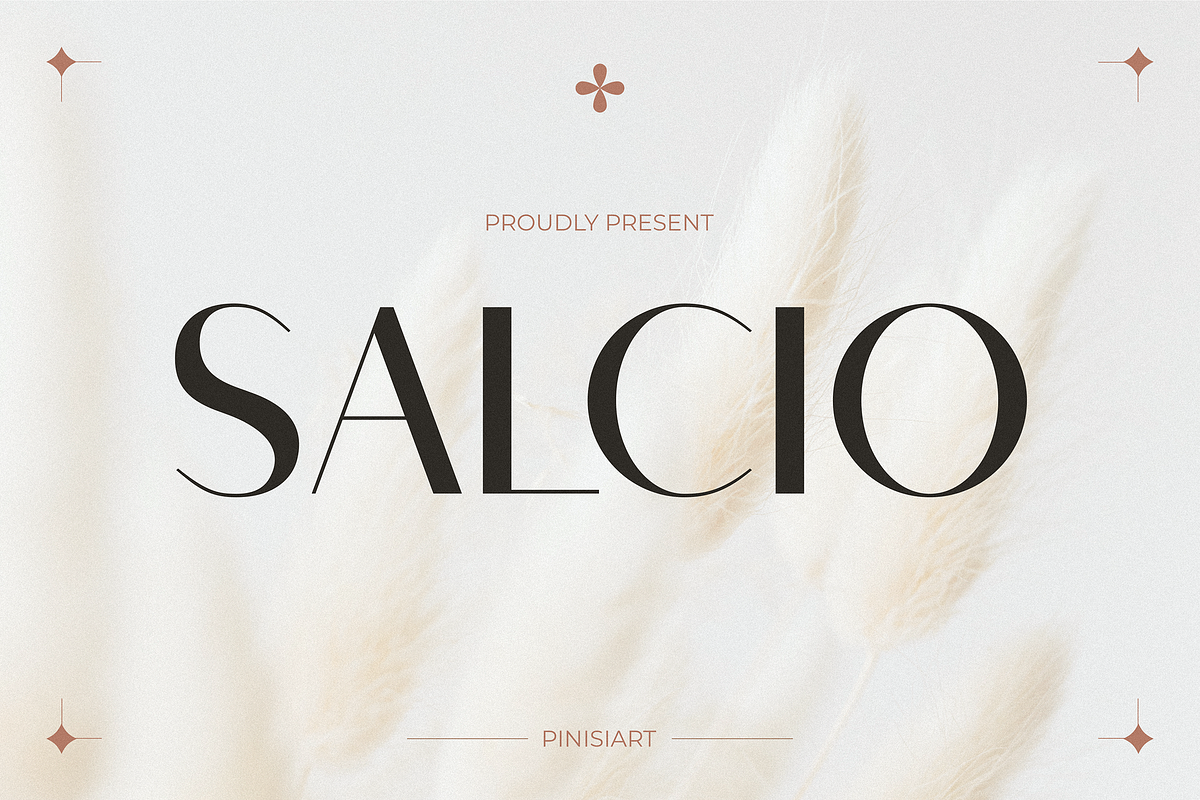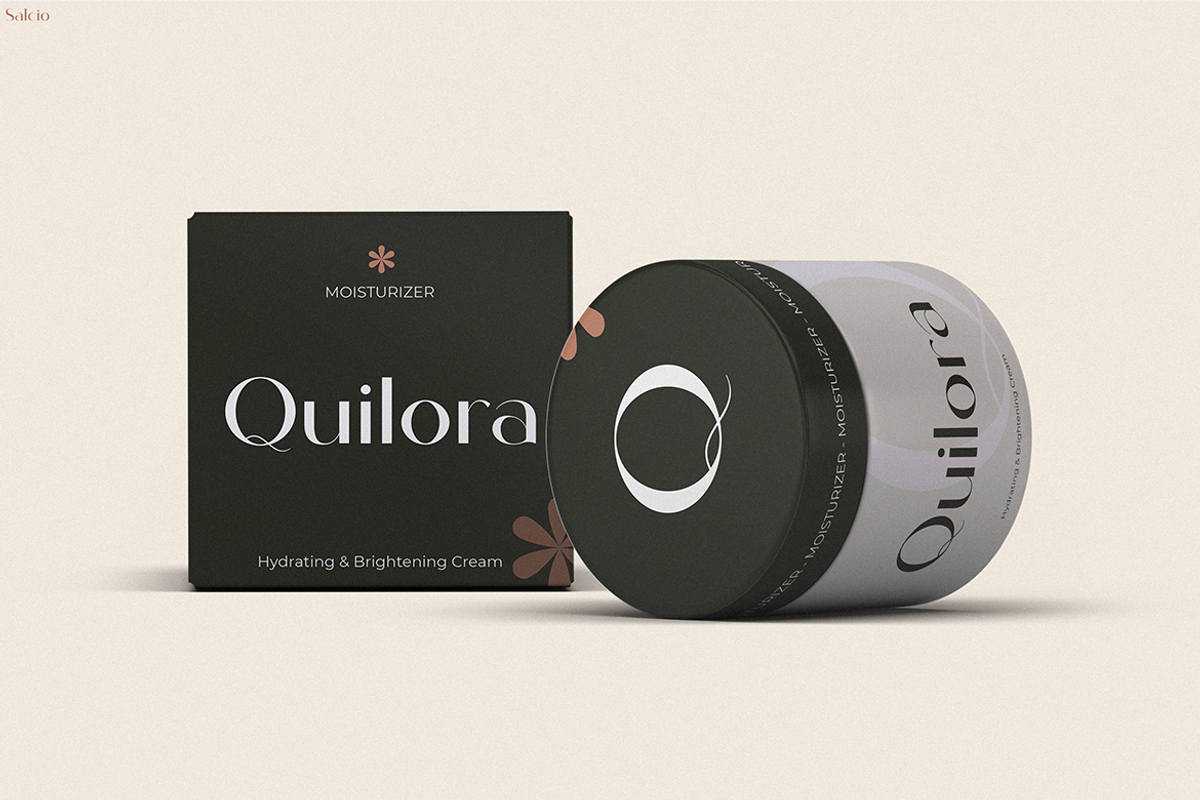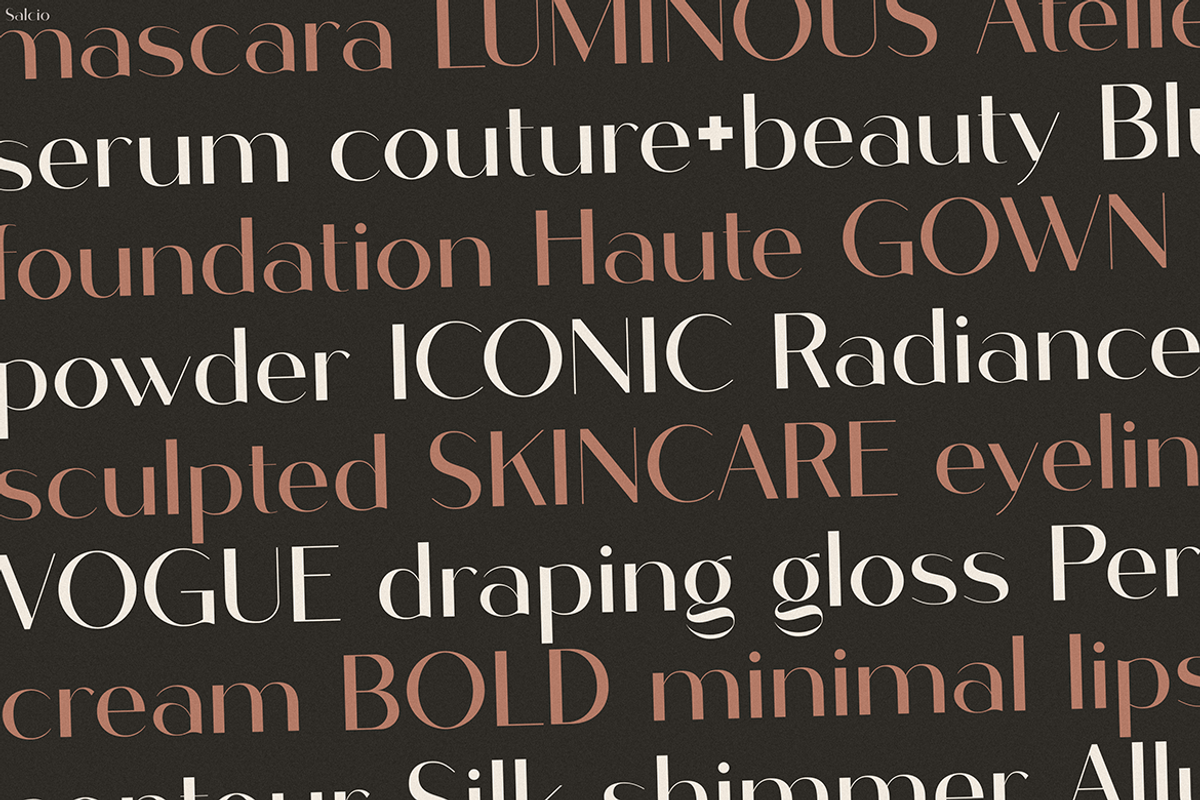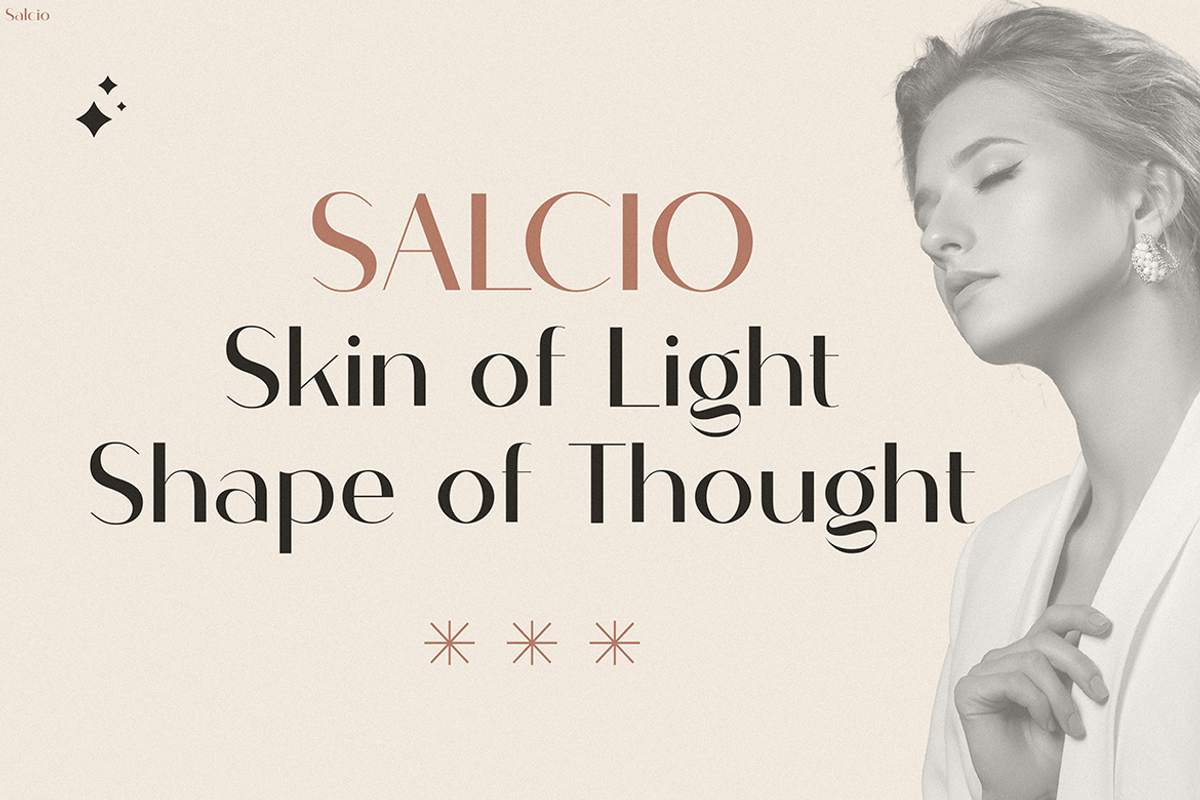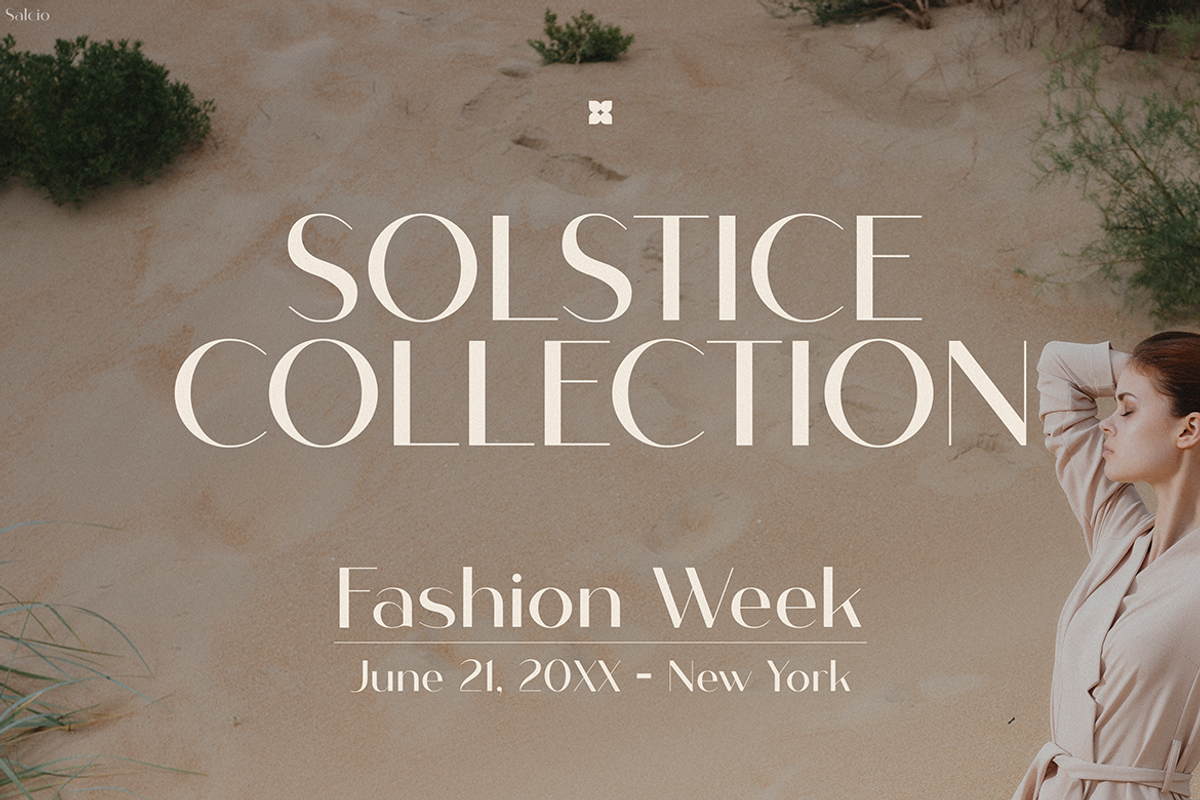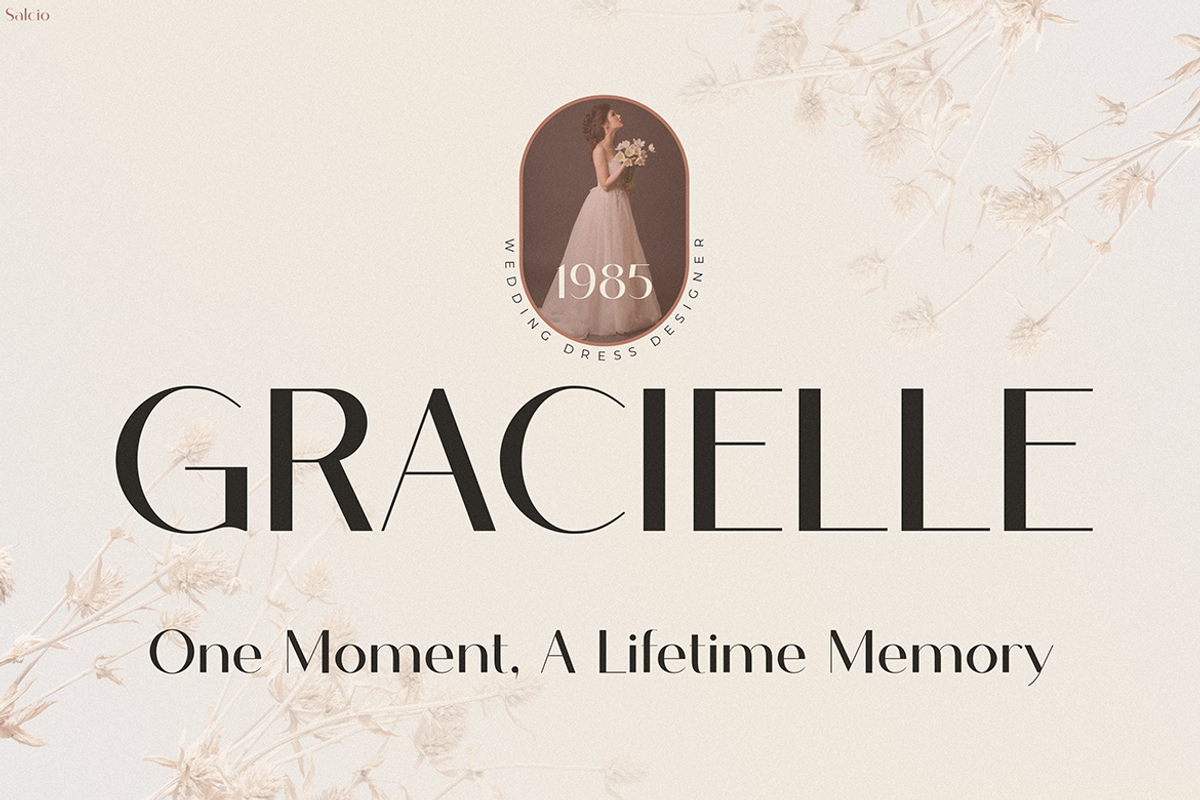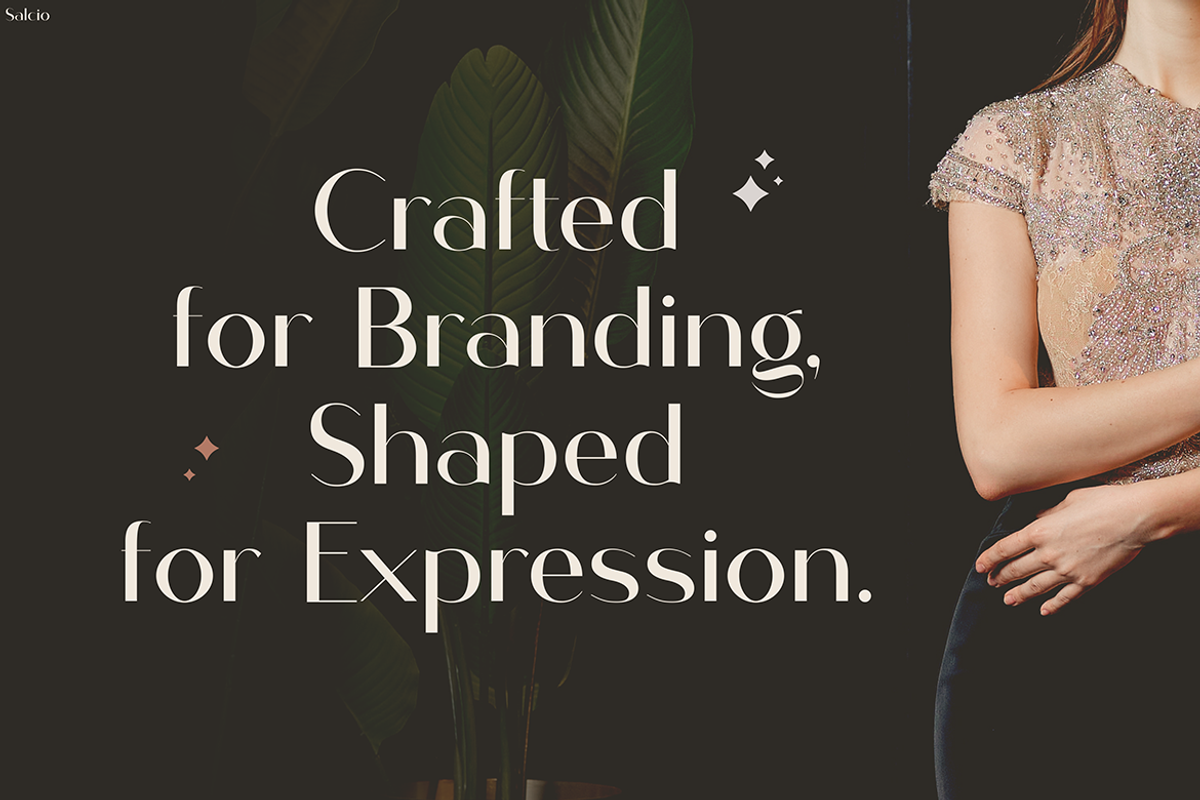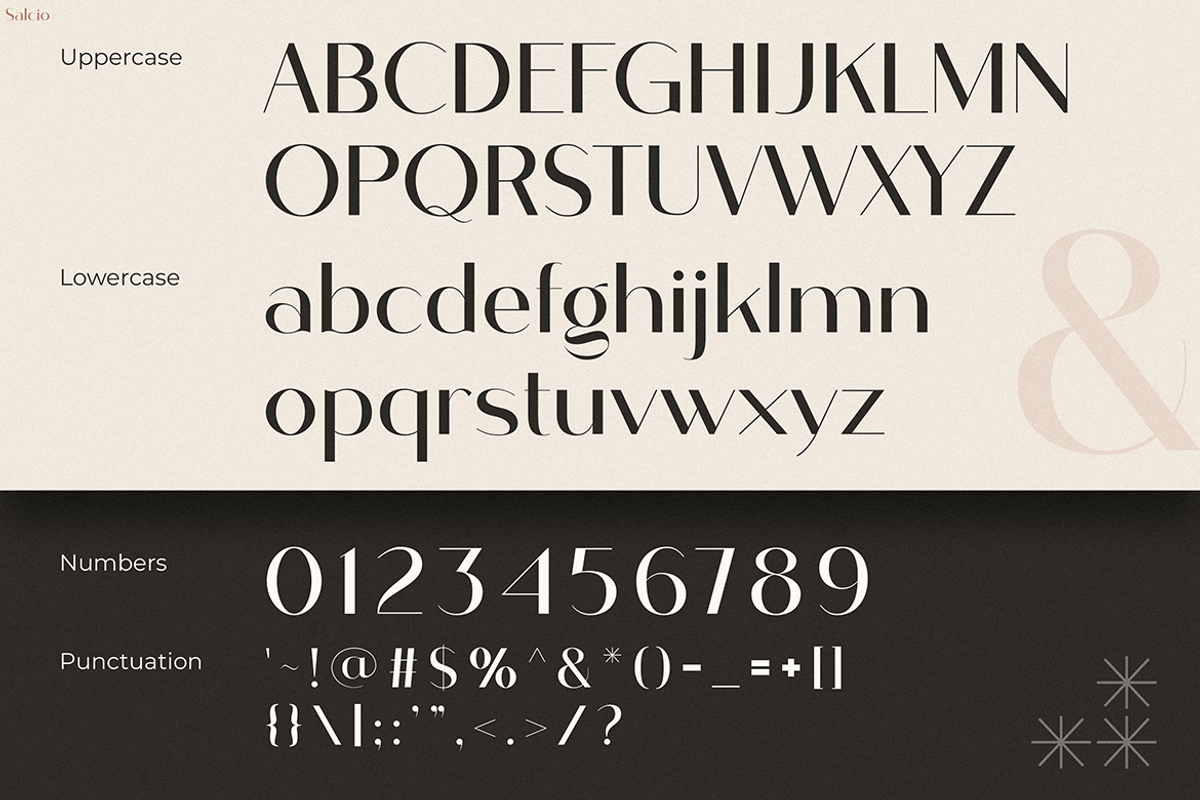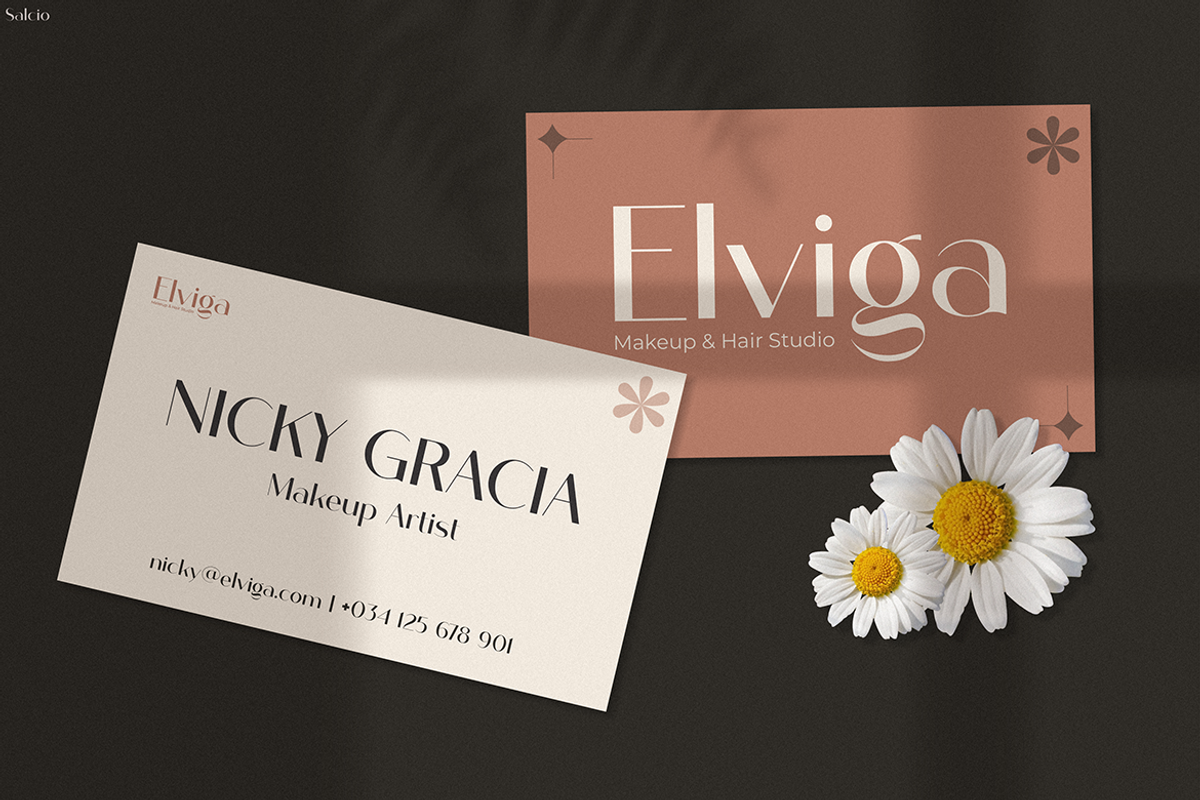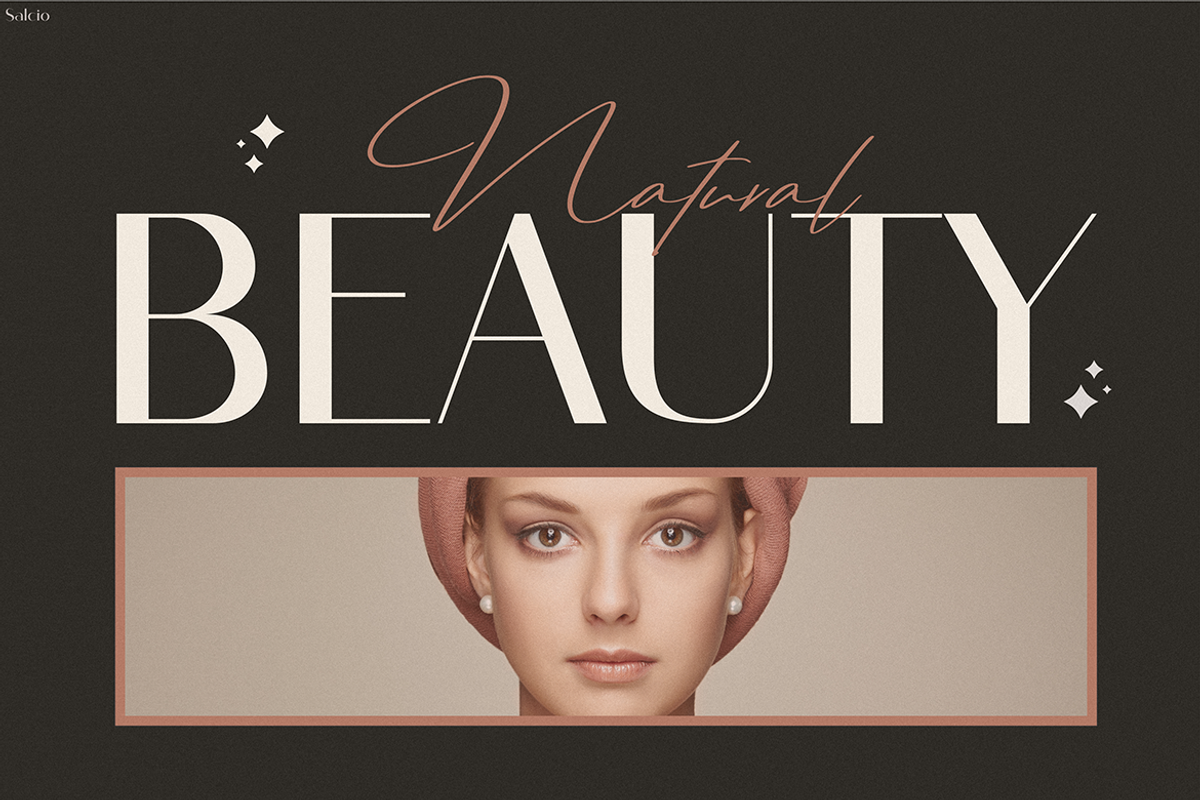
Salcio
Instagram Font Salcio is a modern luxury typeface with timeless appeal. Its clean lines, elegant curves, and balanced shapes create an unforgettable impression. Moreover, each character feels polished and sophisticated, which makes every word more expressive. Salcio is designed to combine style and function, so your text not only looks beautiful but also remains easy to read.
Unlike ordinary fonts, Salcio brings an artistic quality to your projects. For example, it works perfectly in branding, social media posts, and editorial layouts. Because of its unique contrast and graceful flow, this typeface easily adapts to both bold headlines and refined body text. In addition, it keeps a sense of luxury even in minimalistic designs, which helps elevate your overall aesthetic.
When paired with photography, textures, or soft color palettes, Salcio adds depth and harmony. However, it also shines in modern campaigns that need a striking and confident voice. Therefore, whether you are working on a digital concept or a printed piece, this font ensures consistency and elegance.